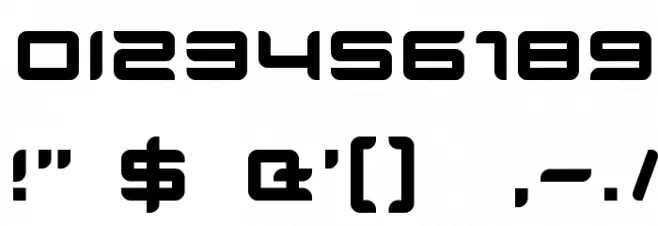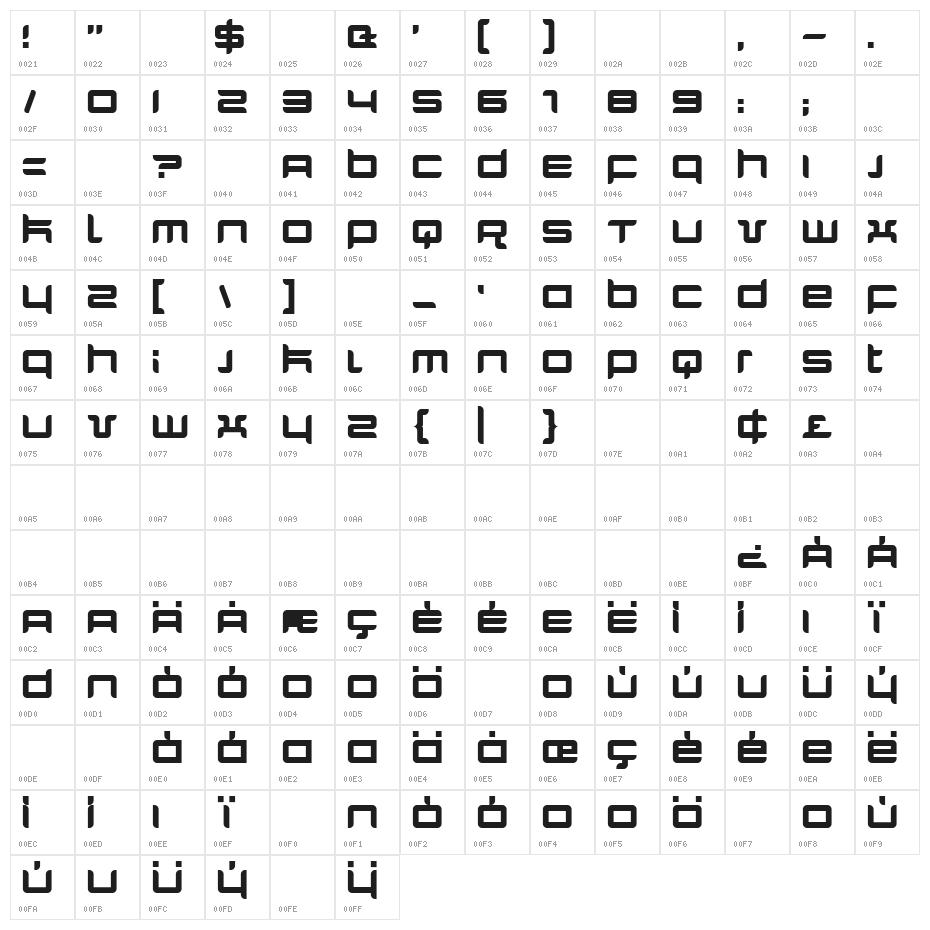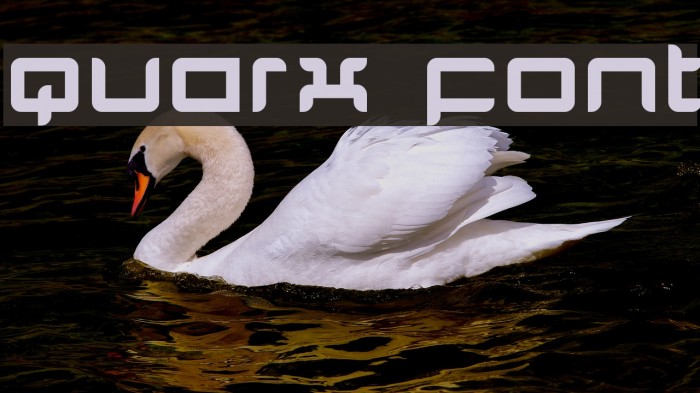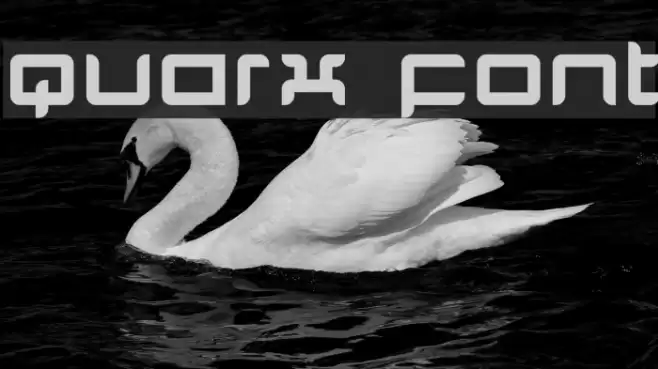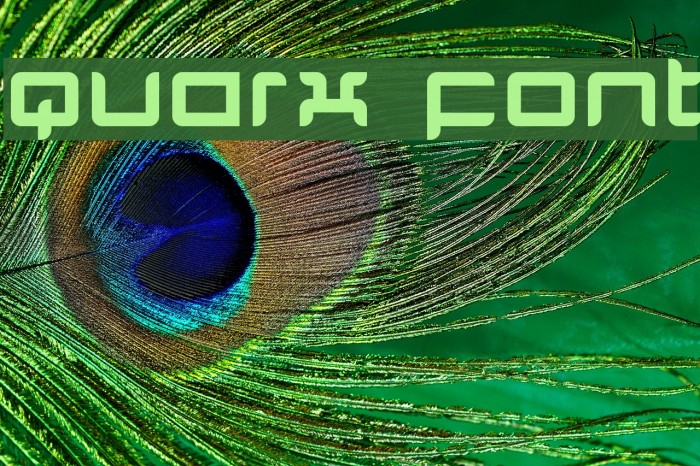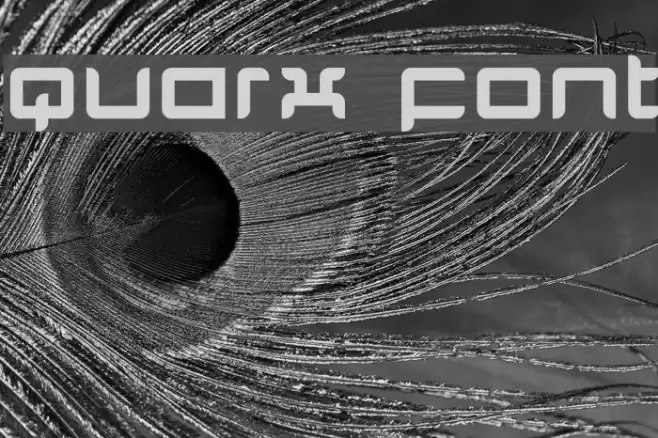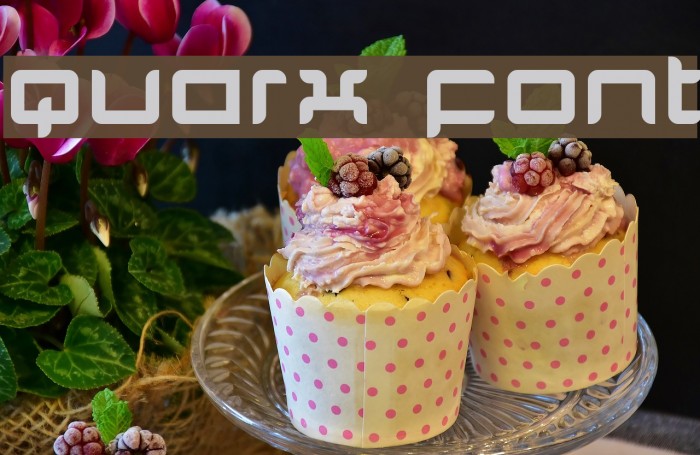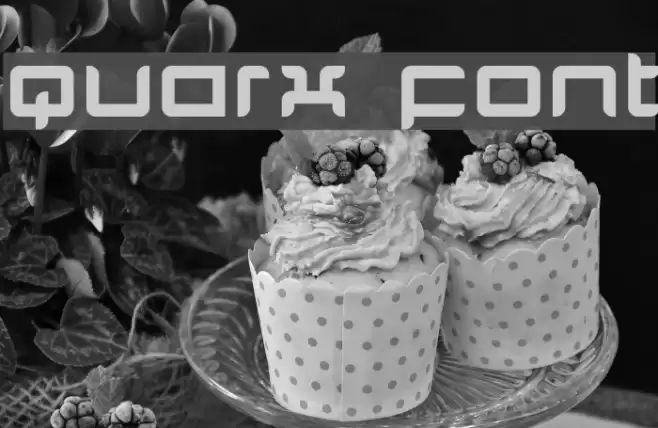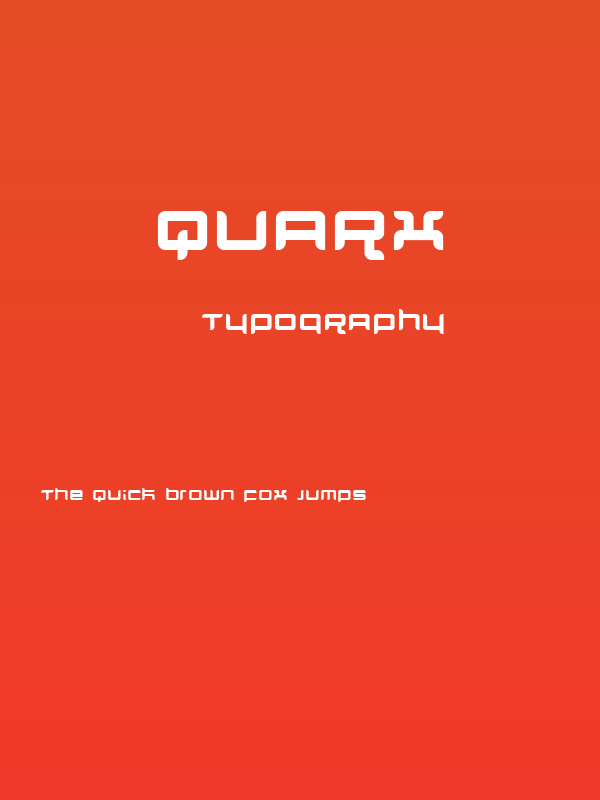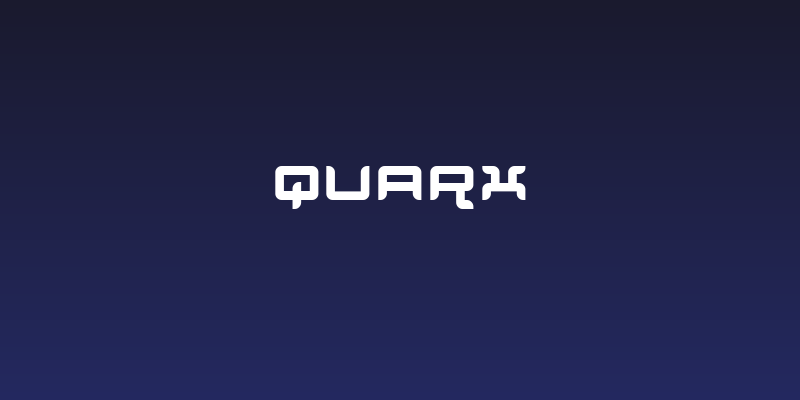
Quarx Font
Quarx Description
This font features a futuristic and geometric design with bold, rounded edges and a uniform stroke width. The characters are distinctly modern, with a digital aesthetic that suggests a high-tech or sci-fi theme. The uppercase and lowercase letters maintain a consistent style, with a focus on symmetry and balance. The numerals and special characters follow the same design principles, ensuring a cohesive look across all glyphs. This font's unique appearance makes it stand out, ideal for projects that require a modern and innovative touch.
| Proposed Projects | Ideal for technology branding, sci-fi movie posters, video game interfaces, and modern advertising campaigns. |